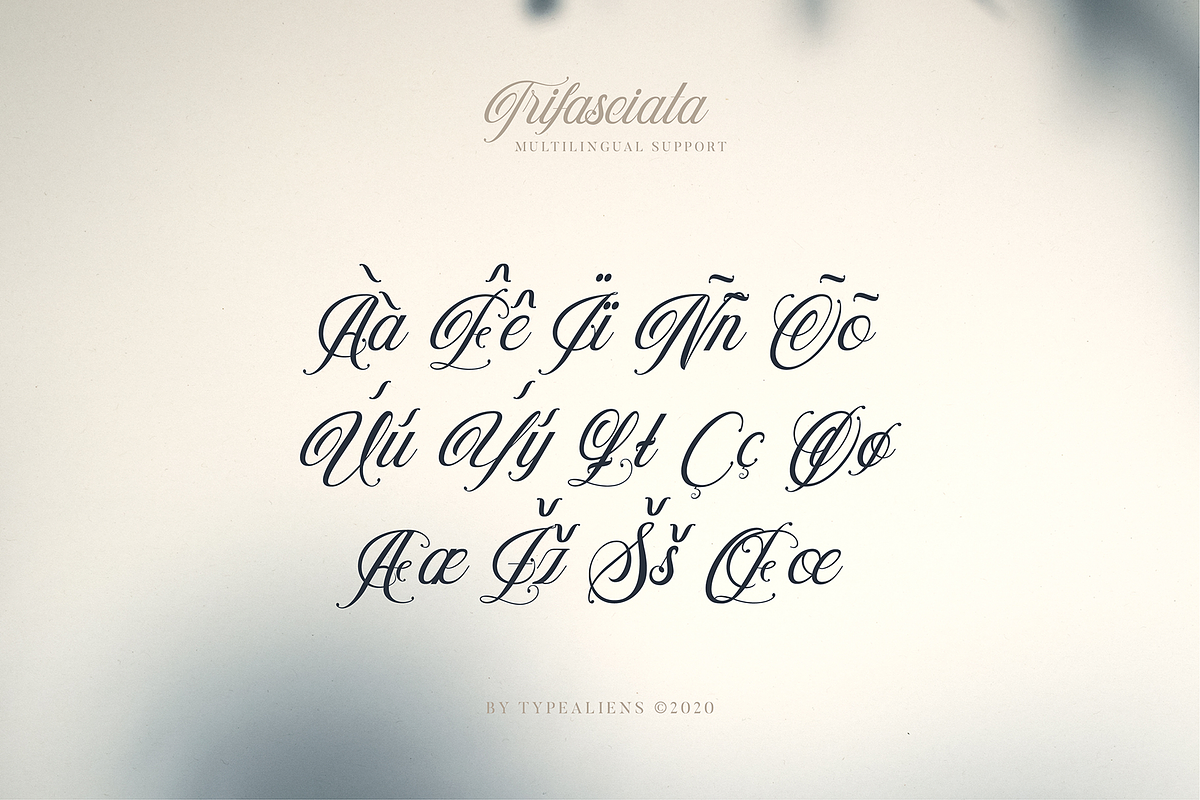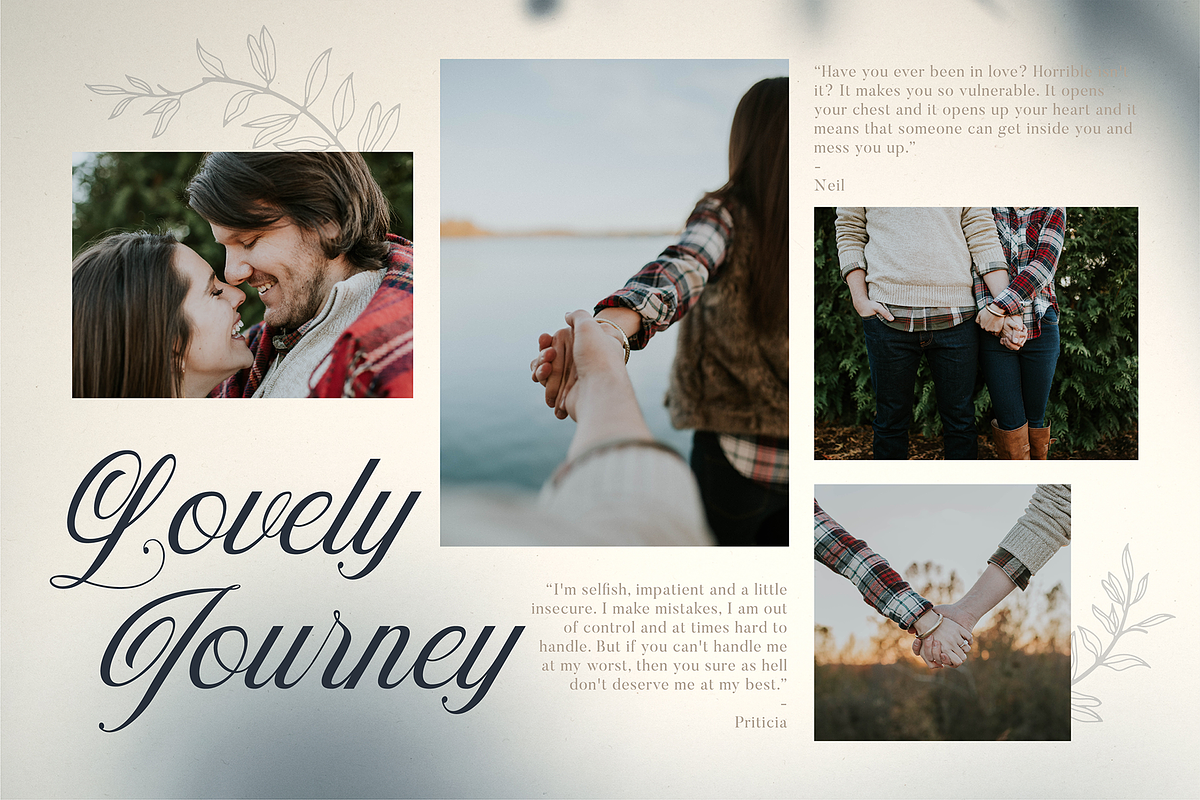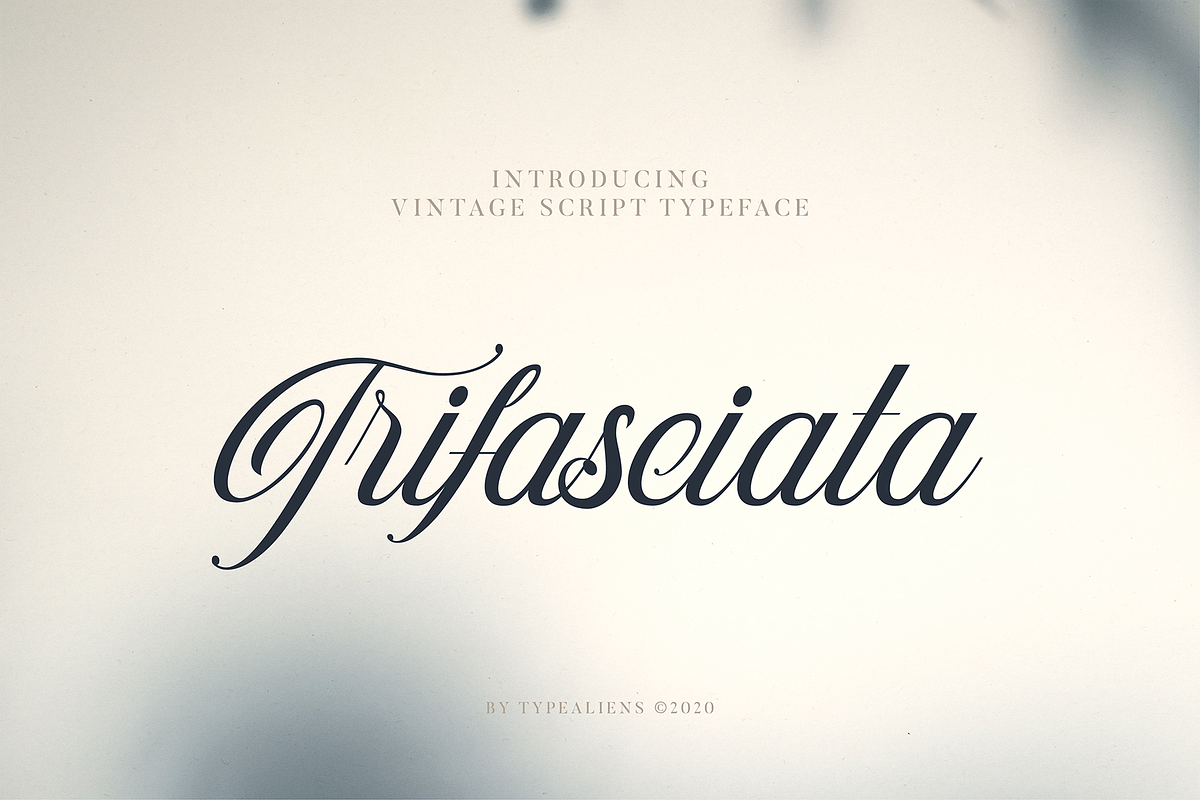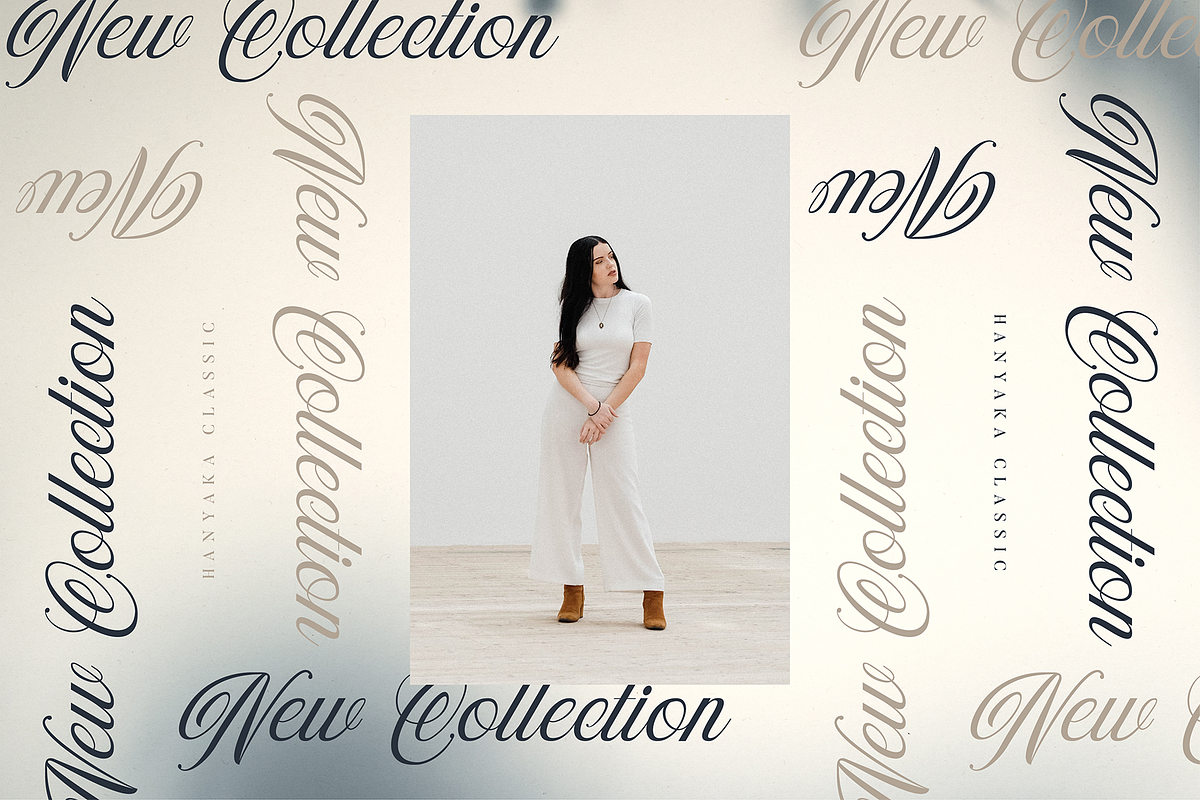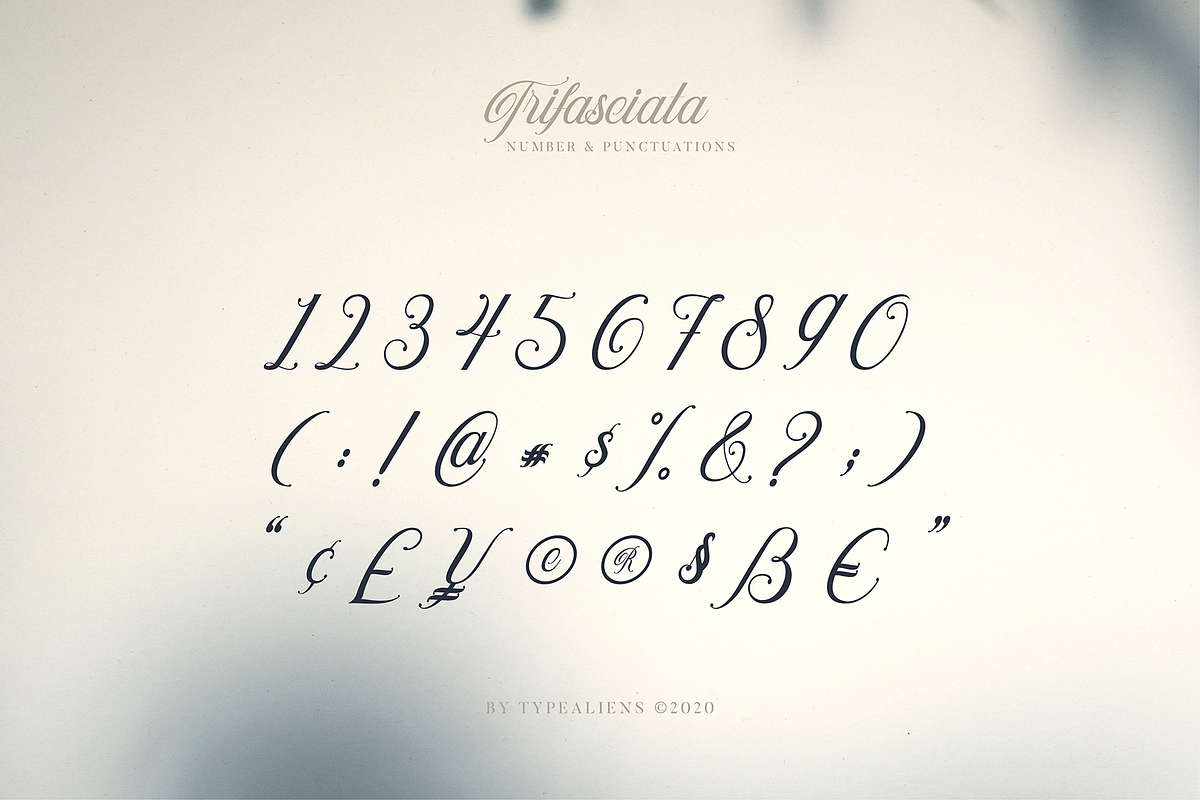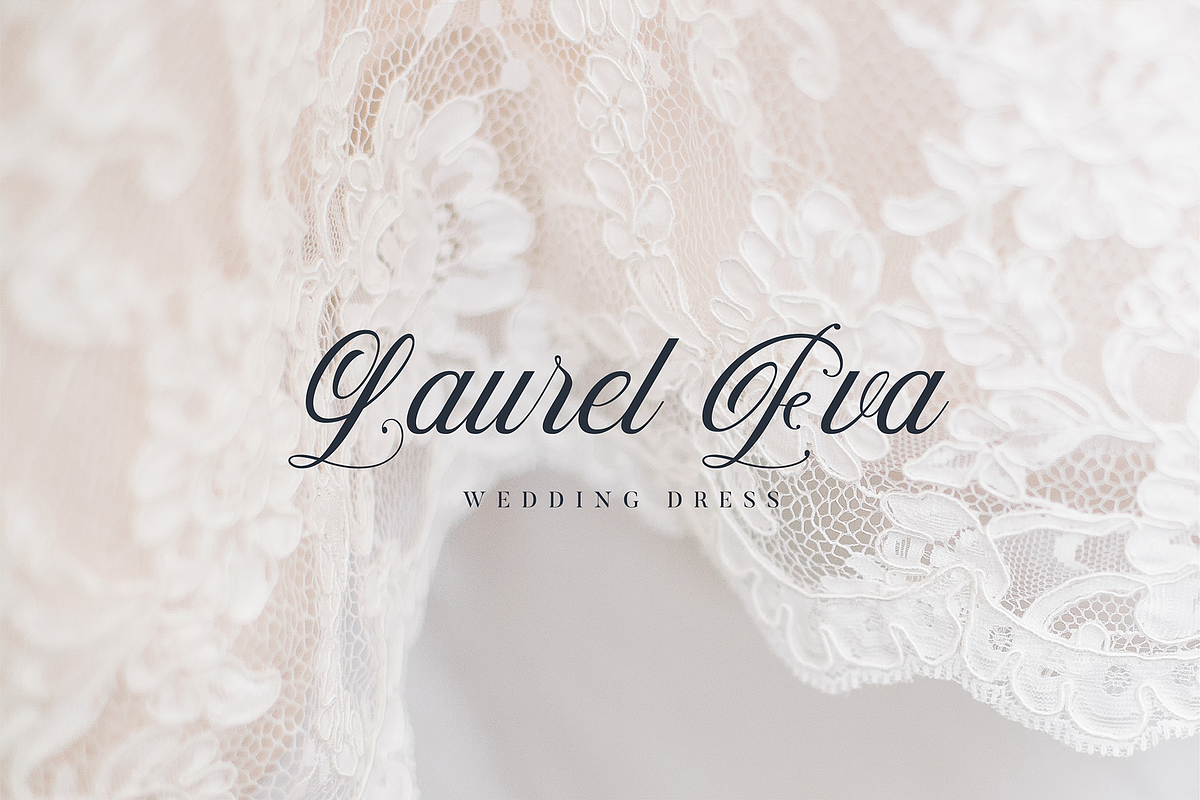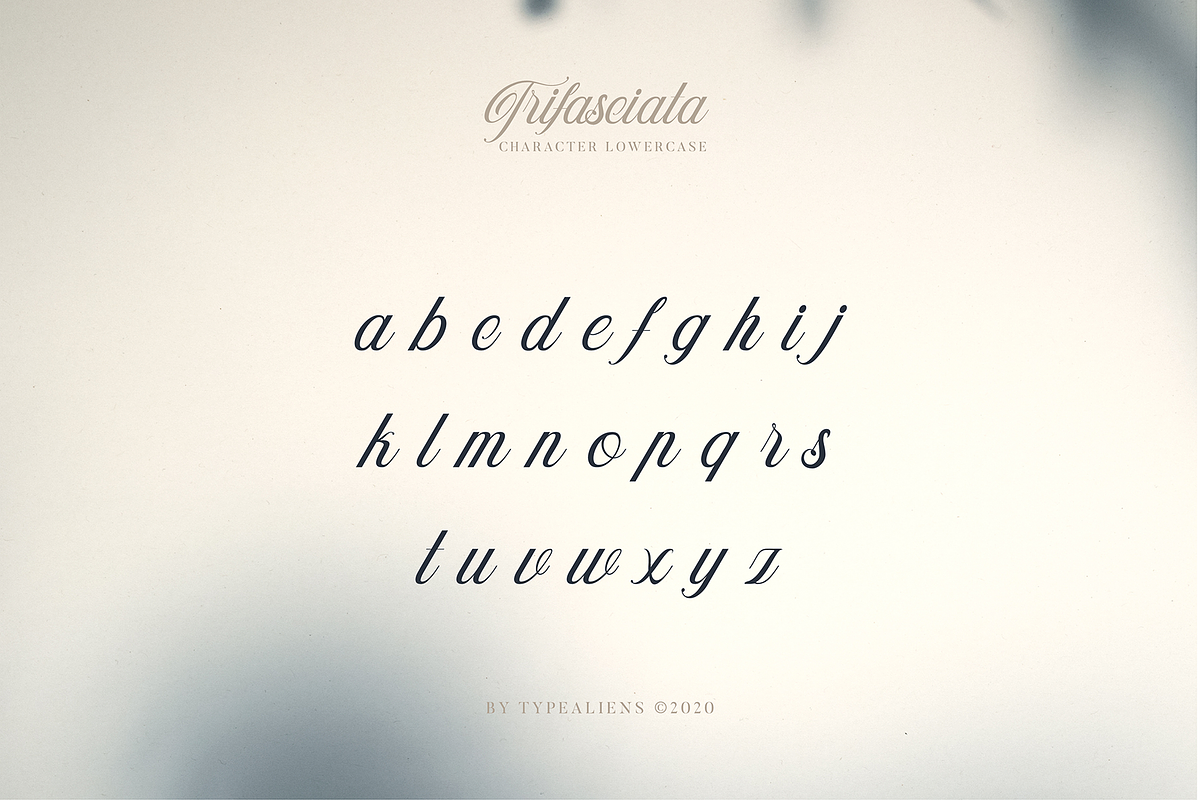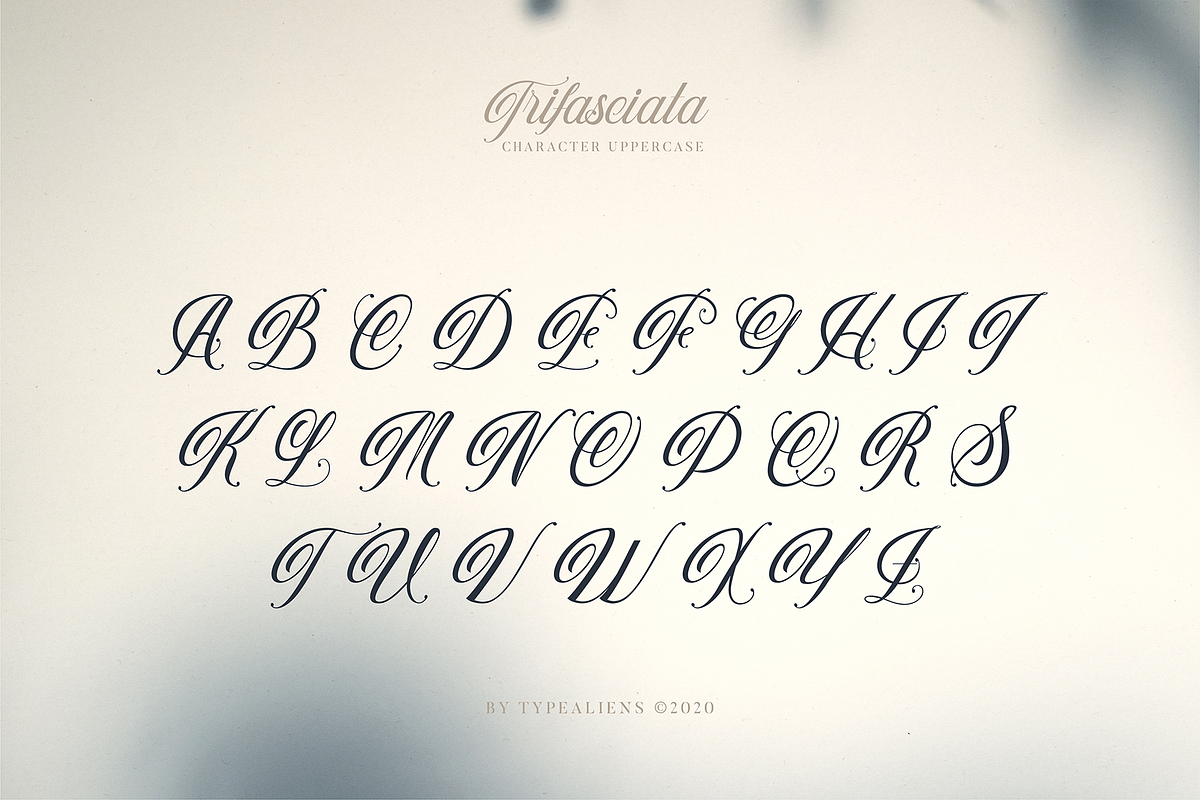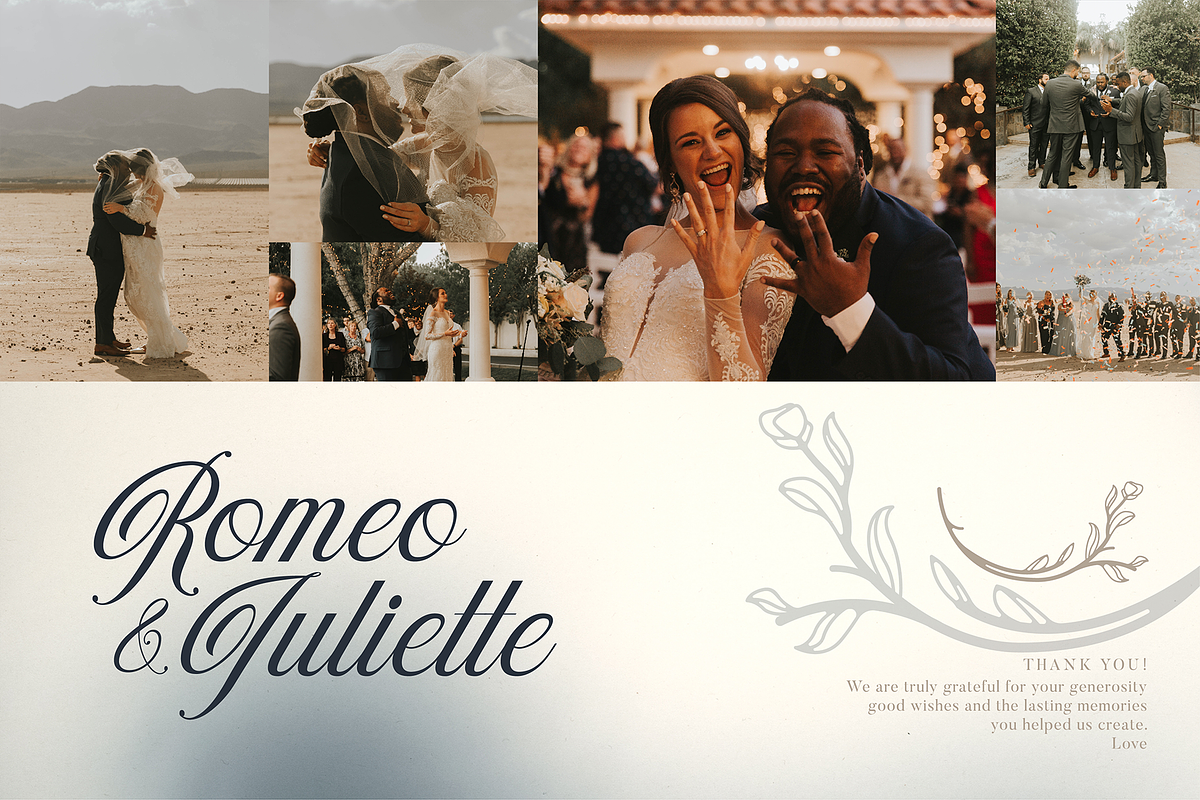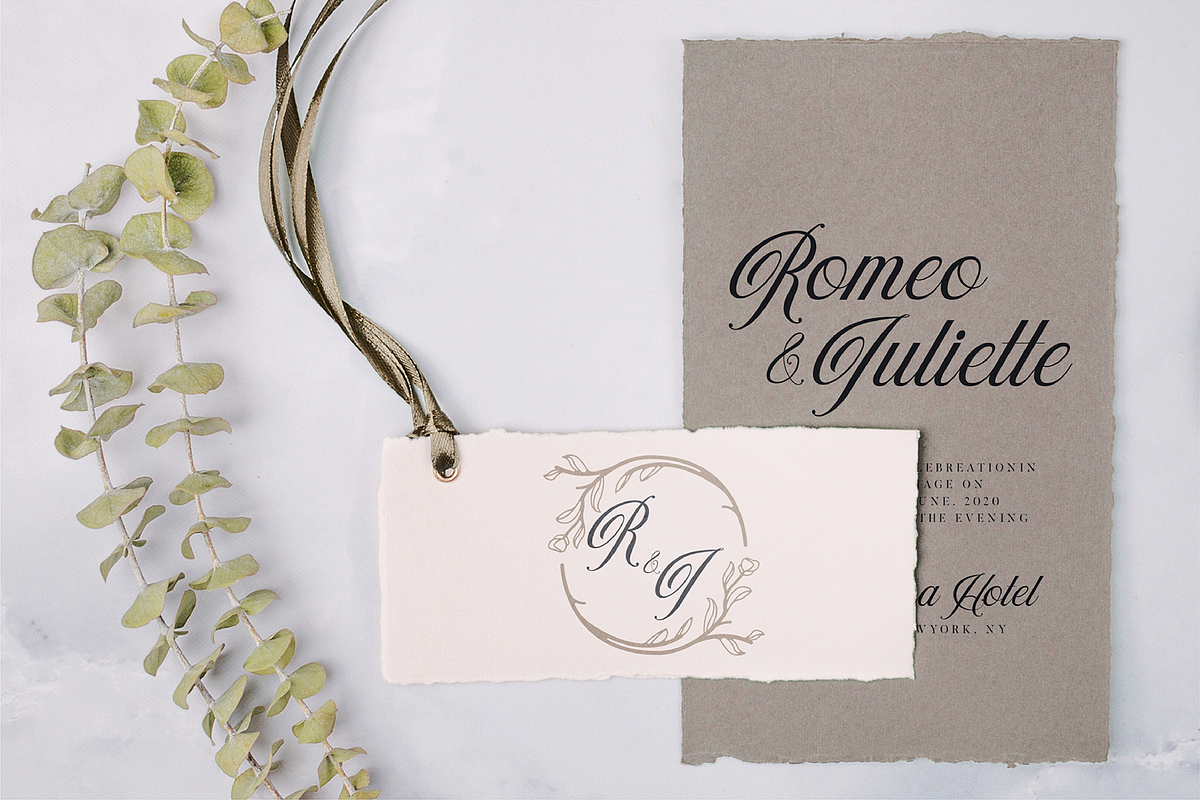
Trifasciata
TRIFASCIATA, is a pretty and elegant script font, perfect for wedding invitation designs, elegant and gorgeous logos.
Trifasciata is a font made from handlettering techniques, with the basic form of the script being modified to make it more unique and beautiful, so that this font can be applied to modern, classic and vintage designs.